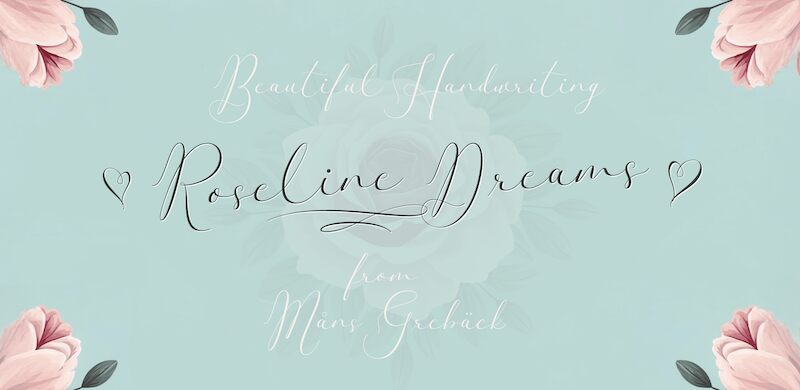
Roseline Dreams is an elegant handwritten script font designed by Mans Greback.
Its graceful curves and fine, delicate strokes evoke a sense of feminine beauty and sophistication, making it the perfect tool for elegant apparel, branding projects, wedding invitations, cosmetics packaging, perfume packaging, photography portfolios and a multitude of other sophisticated branding and design applications.
To create a swash, use an underscore _ anywhere in a word.
Example: Rose_line
For different swashes, use multiple underscores.
Example: Hand_______writing